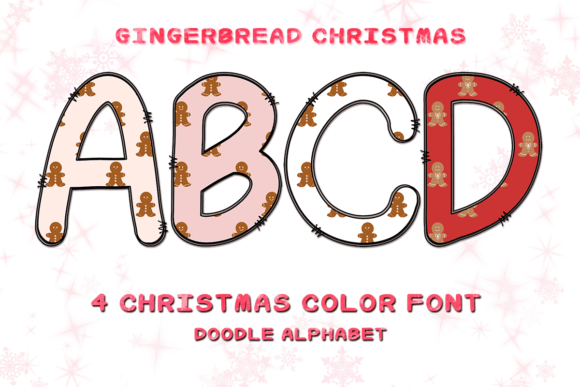
The Sweetest Design Companion: Gingerbread Font
As the holiday season approaches, I find myself cozied up in my studio, surrounded by twinkling lights and the scent of freshly baked treats. It’s during these moments of creative bliss that I stumble upon ideas that make my heart skip a beat. And this year, I’m excited to share one of my most treasured creations – the Gingerbread Font.
This delightful color font is designed to bring a touch of warmth and whimsy to your designs, perfect for Christmas festive and New Year celebrations, or simply to add a playful twist to your everyday projects. With its adorable design, the Gingerbread Font is a valuable addition to any designer’s toolkit, offering endless possibilities for creativity and self-expression. Whether you’re a seasoned pro or a design newbie, this font is sure to become your new BFF.
Gingerbread Font Key Features
- Font Family: Gingerbread Font is a sans-serif font family designed for digital use. It includes 5 font styles: Regular, Bold, Italic, Bold Italic, and Outline.
- Character Set: The font includes a comprehensive character set, including Latin, Cyrillic, and Greek alphabets, as well as punctuation marks and symbols.
- Unique Characteristics: The Gingerbread Font features a distinctive rounded design with subtle bevels and rounded edges, giving it a modern and playful feel.
Gingerbread Font Review
Gingerbread Font is a delightful, hand-drawn typeface that instantly captures the essence of holiday cheer. ✨ Its whimsical design makes it perfect for festive projects, from greeting cards to social media graphics. The font’s varied letterforms and playful flourishes add a touch of warmth and personality to any text.
- Customization Options: Gingerbread Font offers a range of customization options, including size, color, and style, allowing users to tailor the font to their specific needs.
- High-Quality Graphics: The font’s high-quality graphics ensure that the text looks crisp and clear, even at large sizes.
- Limited Font Styles: Gingerbread Font only offers a few font styles, which may limit its versatility in certain projects.
- Not Ideal for Professional Use: While the font is perfect for casual, festive projects, it may not be suitable for professional use due to its informal, hand-drawn design.
- Pair the Gingerbread Font with festive colors like red and green to create a cohesive look.
- Use illustrations of gingerbread men or other holiday-themed graphics to add visual interest.
- Balance the whimsy of the Gingerbread Font with clean, simple text for headings and descriptions.
- Use the Gingerbread Font as the title font for the recipe book cover.
- Choose a bold, playful font for the author’s name or subtitle.
- Experiment with different font sizes and arrangements to create a visually appealing design.
- Combine the Gingerbread Font with a warm, golden color scheme to evoke the feeling of freshly baked cookies.
- Use a distressed or vintage texture to give the cover a nostalgic feel.
- Balance the whimsy of the Gingerbread Font with clean,
Gingerbread Font FAQs
Q: What is Gingerbread Font and what type of font is it?
Embellishing with Gingerbread Font
Project 1: Gingerbread-Themed Menu Board
A festive and inviting menu board for your holiday party or bakery.
How to use Gingerbread Font:
Project 2: Gingerbread Recipe Book Cover
A charming and eye-catching cover design for your favorite holiday recipe book.
How to use Gingerbread Font: